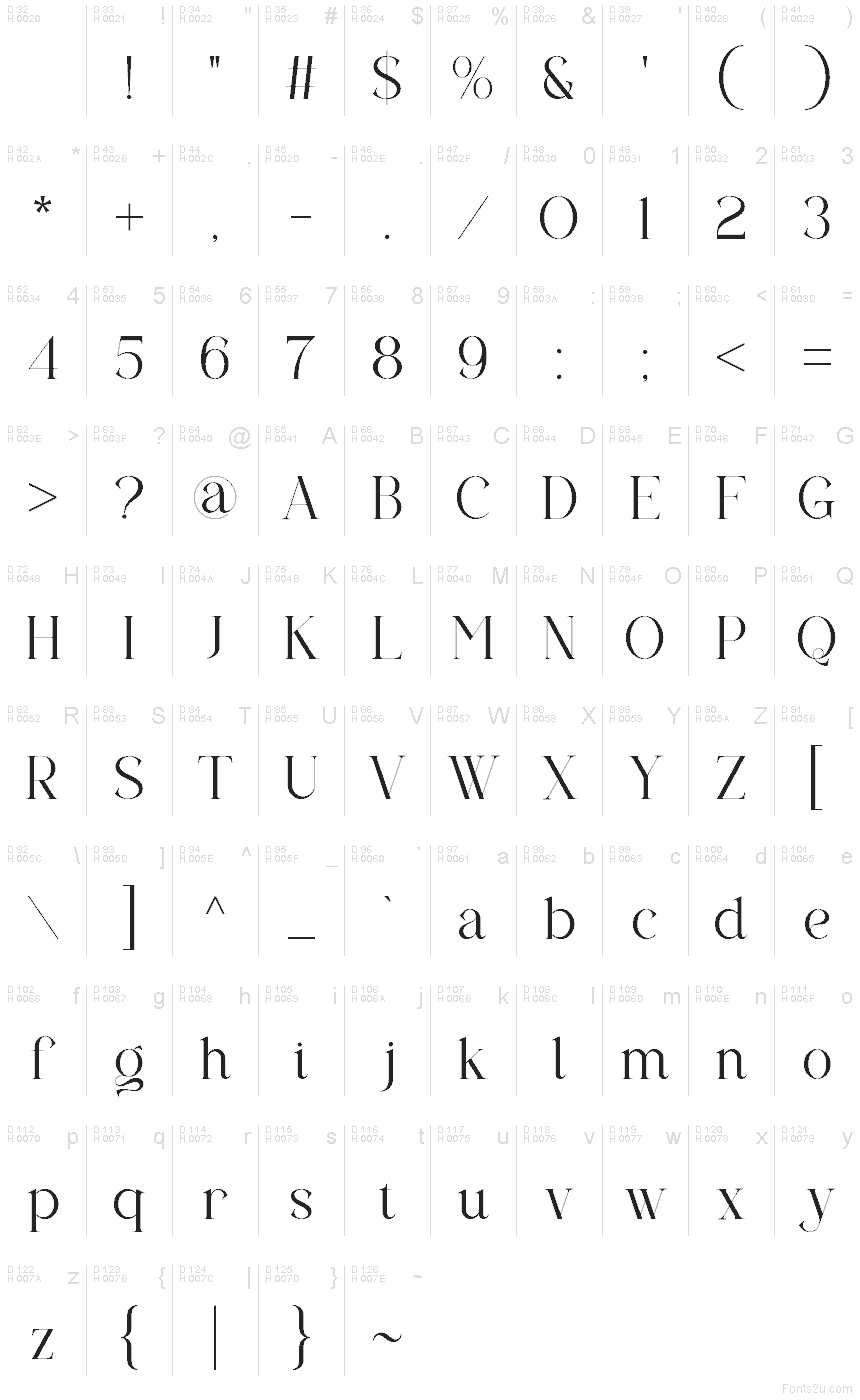
Raleny
Raleny font by ErmediaStudio is a free serif font. It stands out with sleek, blade-like serifs and tapered strokes that snap from inky thick to hairline thin. The curves feel carved and deliberate, with airy counters and crisp cuts that give headlines a luxurious, editorial snap without getting fussy.
Using Raleny, titles and wordmarks carry a couture vibe that shines on fashion branding, beauty packaging, magazine covers, event posters, and upscale invitations. The rhythm is tight and elegant, so it also works beautifully for boutique logos and hero banners. This free font loves large sizes; add a touch of tracking and pair with a neutral sans for body copy to keep the spotlight on its sculpted contrast.